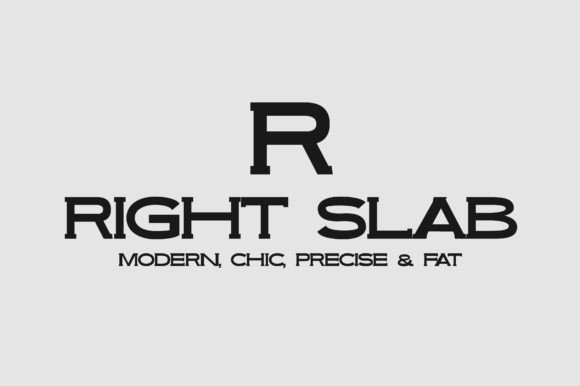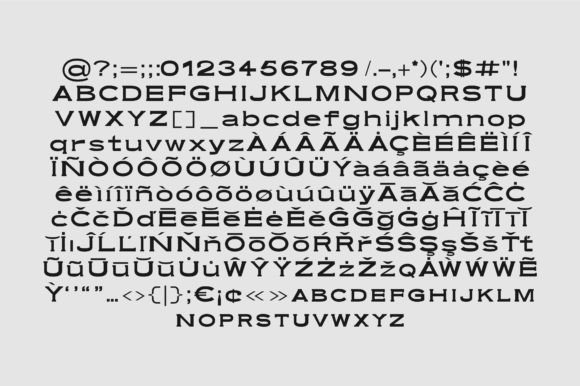
Trèsor Font
TRÈSOR FONT SPECIMEN
Trèsor is a unique and stylish slab serif font. Incredibly versatile, this font fits a wide pool of designs, elevating them to the highest levels. Add this font to your favorite creative ideas and notice how it makes them come alive!